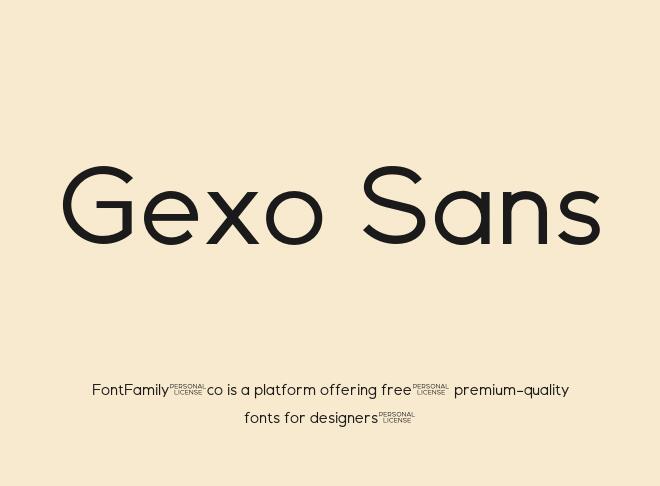
Gexo Sans Font
The Gexo Sans Font, developed by the creative minds at Gexo Foundry, is a modern, geometric, and minimalistic typeface that stands out in the crowd. Released in 2018, its design is inspired by the simplicity and functionality of Scandinavian design. The font's clean lines and sharp edges provide a sleek and contemporary look, making it a perfect choice for digital design projects, logos, and branding. Gexo Sans is comparable to the Futura and Avant Garde fonts but has its unique flair that sets it apart. Its versatility makes it ideal for both print and digital media. This font's clear legibility and balanced spacing make it a designer's favorite. Gexo Sans Font is an exceptional choice for those who appreciate modern design and want to bring a touch of sophistication to their projects.